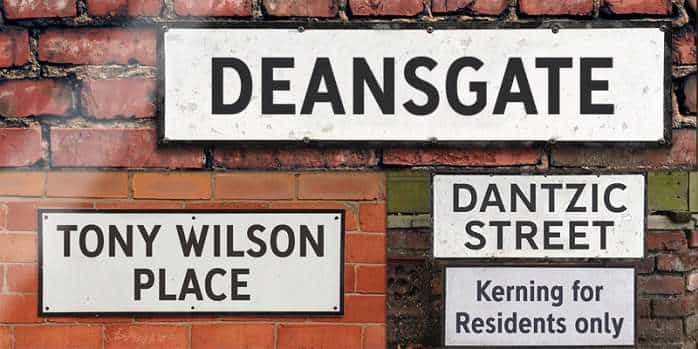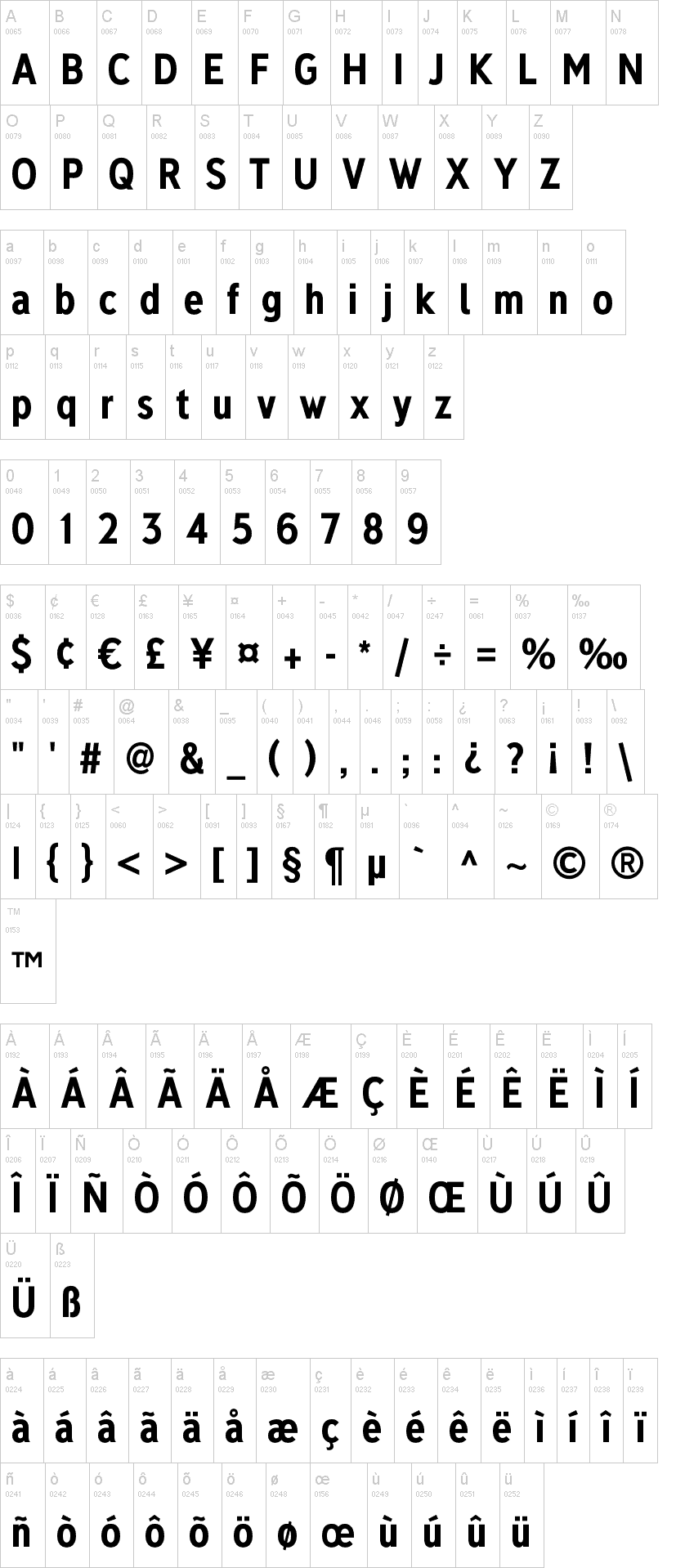
Deansgate and Deansgate Condensed are derived from the most legible and characteristic of the sans serif letterforms typically used on Manchester street nameplates and have a distinctive pointy ‘Z’ and pointy vertex/apex on M and W.